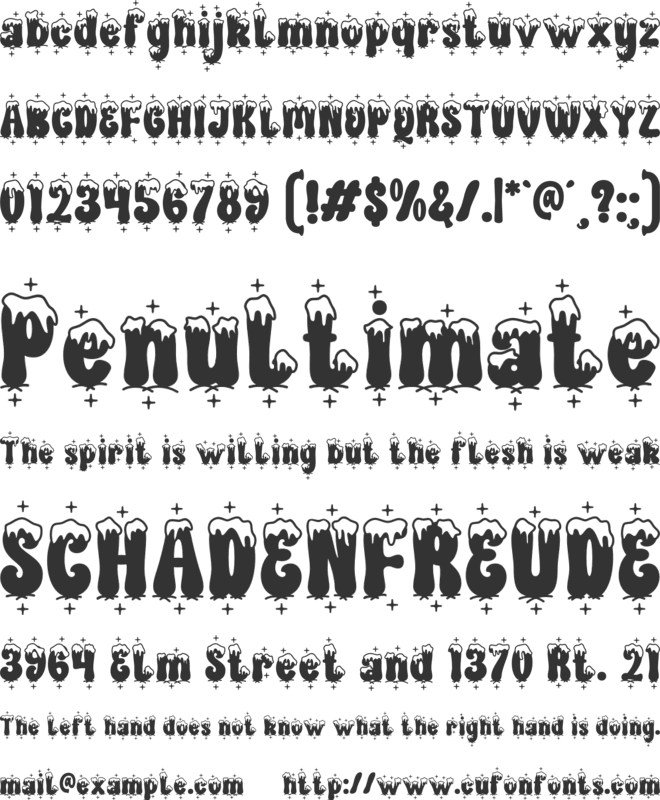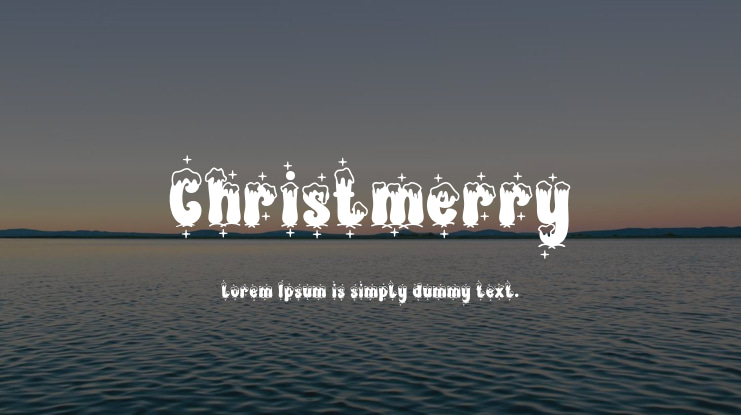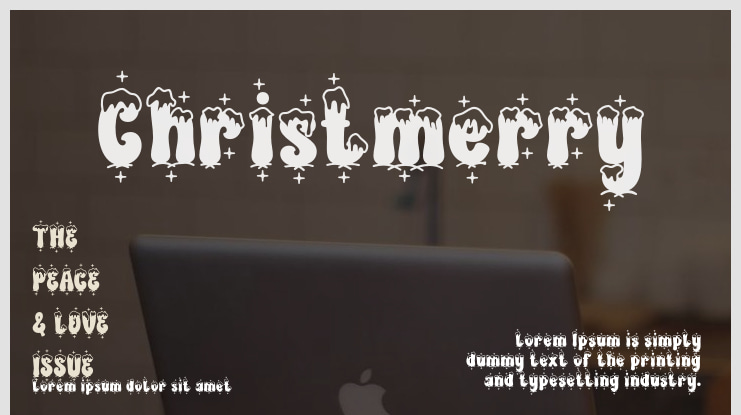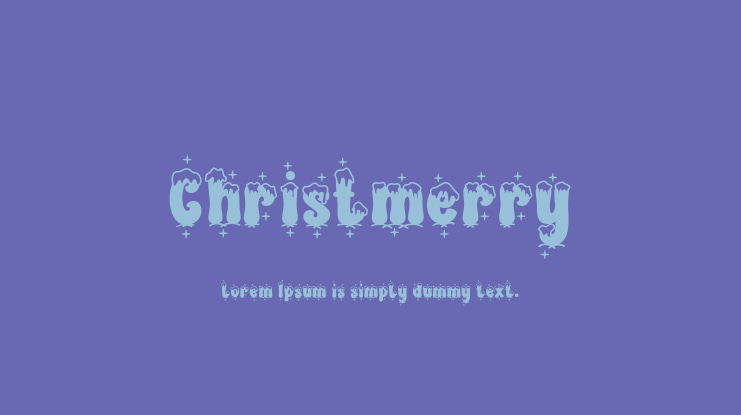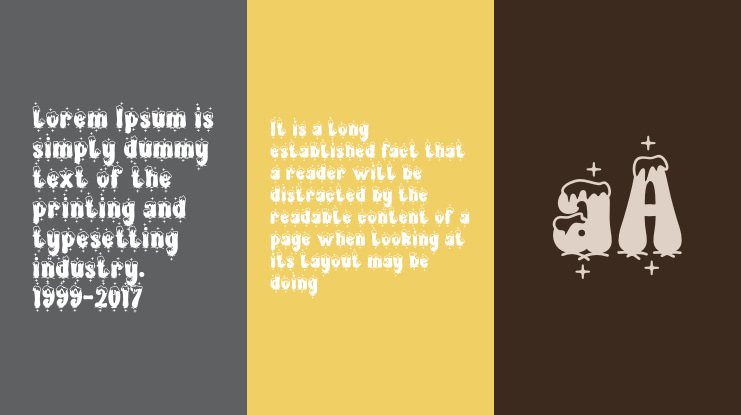
Christmerry Font
The Christmerry font is a decorative typeface with a festive Christmas theme, making it an ideal choice for spreading holiday cheer. It is especially suited for creating stunning Christmas cards, delightful wedding invitations, memorable branding, charming stationery, captivating blog designs, unique artwork, personalized stamps, elegant embossers, or any other creative project you have in mind.